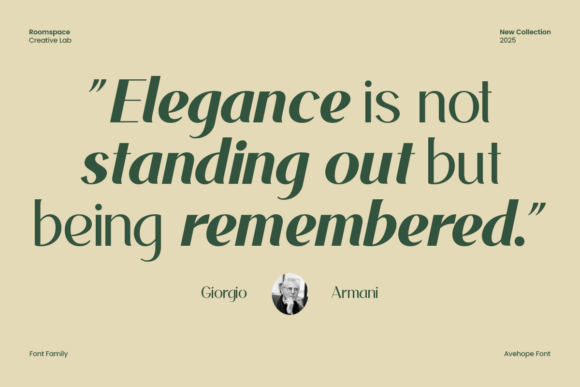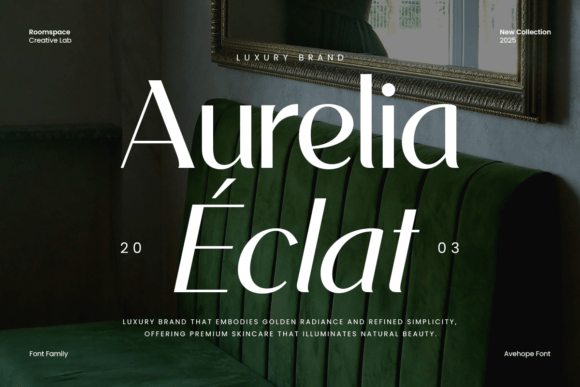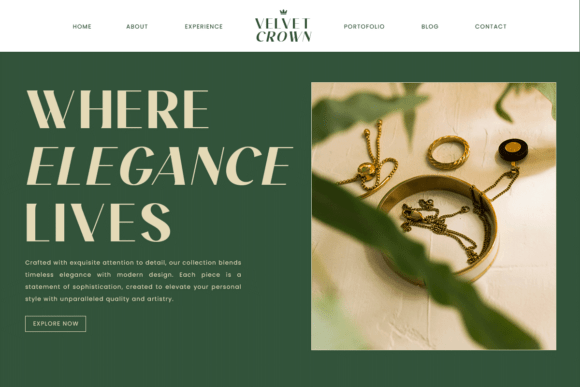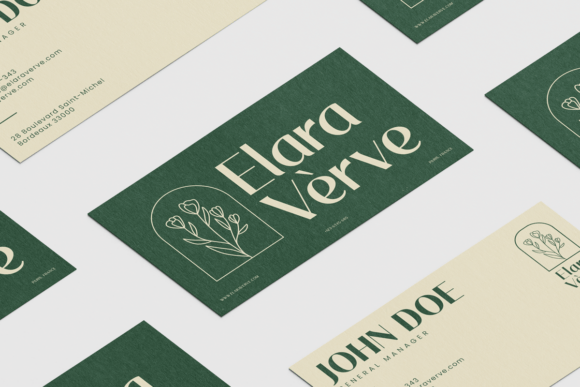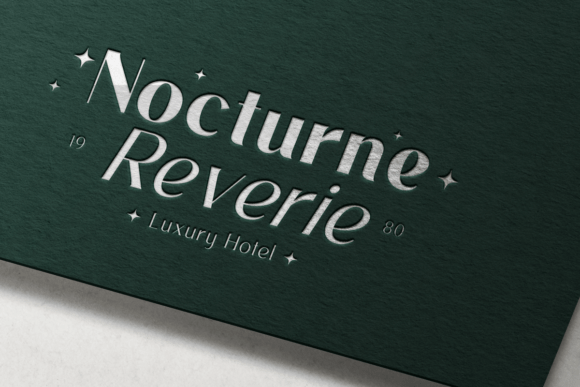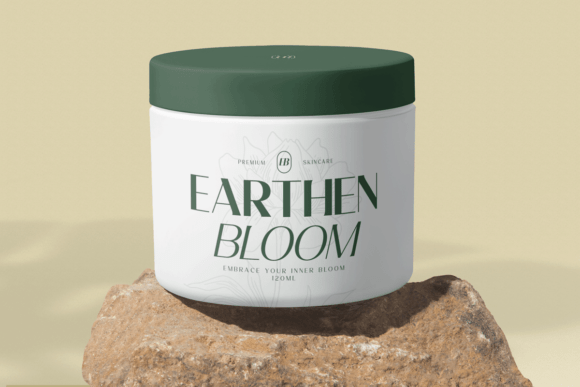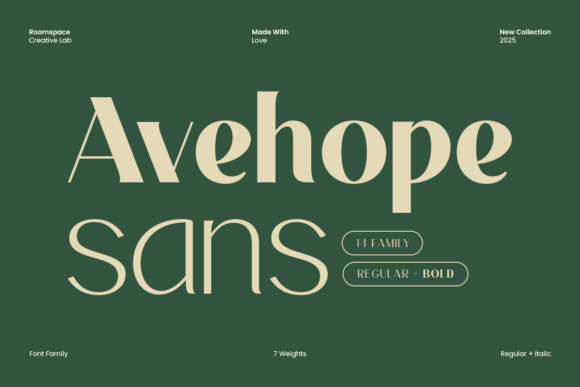
The Ultimate Design Game-Changer: Avehope Sans Font
I’ll never forget the design struggle is real! I was working on a branding project for a trendy new coffee shop, and I just couldn’t find the perfect font. The client wanted something modern, elegant, and highly legible. I scoured the internet, tried out a gazillion fonts, but nothing seemed quite right. That was until I stumbled upon the Avehope Sans Font Family. It’s been a game-changer ever since! 💡
- ✨ Modern geometric design: Avehope Sans is sleek, clean, and geometric, making it perfect for modern designs.
- ✅ Versatility: With 14 fonts (7 weights + Italic), it’s incredibly versatile and suitable for a wide range of projects.
- 💯 Professional balance: Each font is carefully crafted to deliver a professional balance between elegance and functionality.
- 📚 Suitable for print, digital, and creative projects: Whether you’re working on a brochure, website, or social media graphics, Avehope Sans has got you covered.
While Avehope Sans is an amazing font, there are a few things to keep in mind: 🤔
- ⚠️ Some characters may require manual kerning: Depending on your design, you might need to adjust the kerning for certain character combinations.
The Story Behind Avehope Sans
Avehope Sans was designed with the goal of creating a modern, geometric sans-serif font that’s both elegant and functional. The design team poured their hearts into crafting a font that’s suitable for a wide range of projects, from branding and packaging to editorial and digital designs.
Q: What makes Avehope Sans unique?
A: Avehope Sans boasts a modern geometric design, 14 font variations, and a professional balance between elegance and functionality.
Q: Is Avehope Sans suitable for body text?
A: Absolutely! Avehope Sans is designed for clarity and versatility, making it perfect for body text in editorial and digital projects.